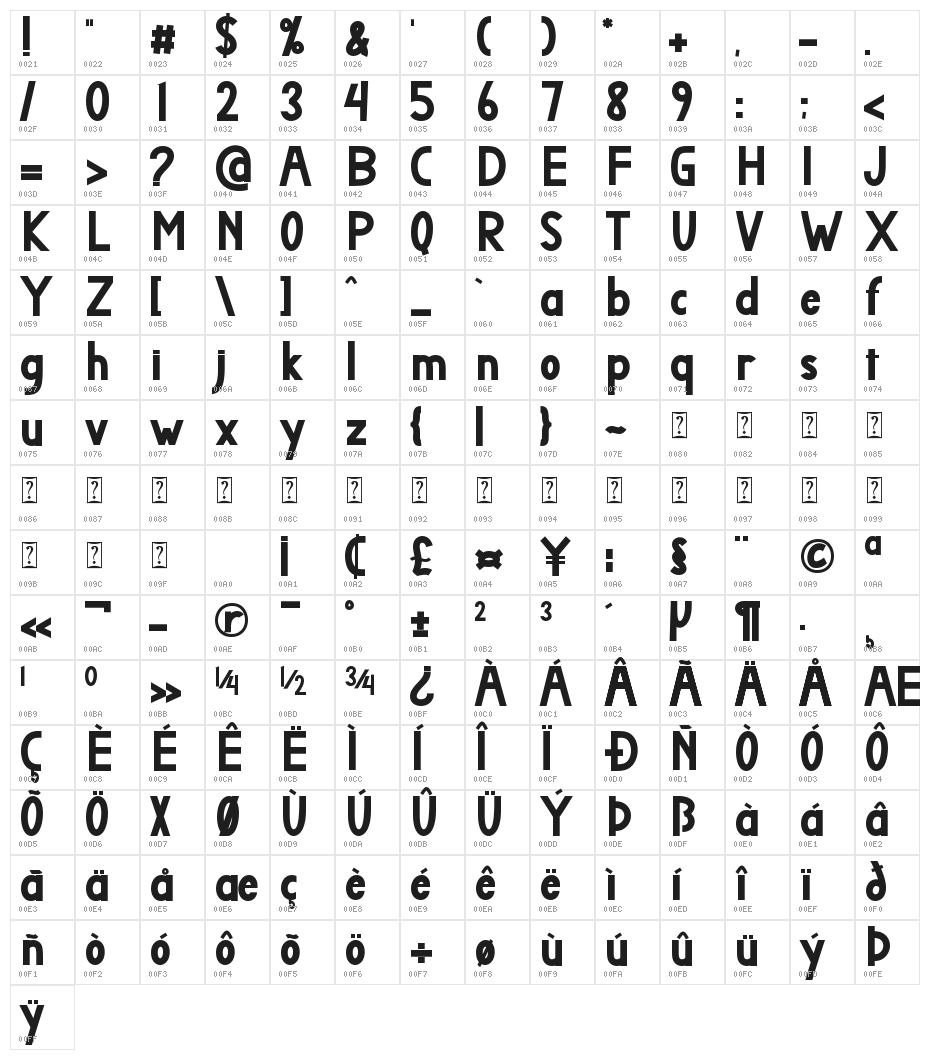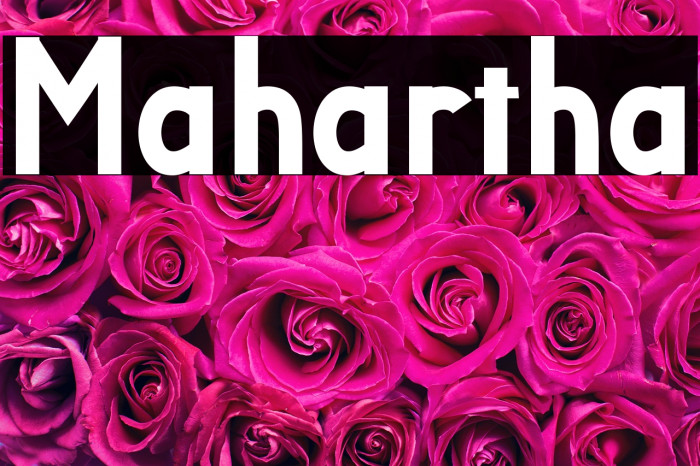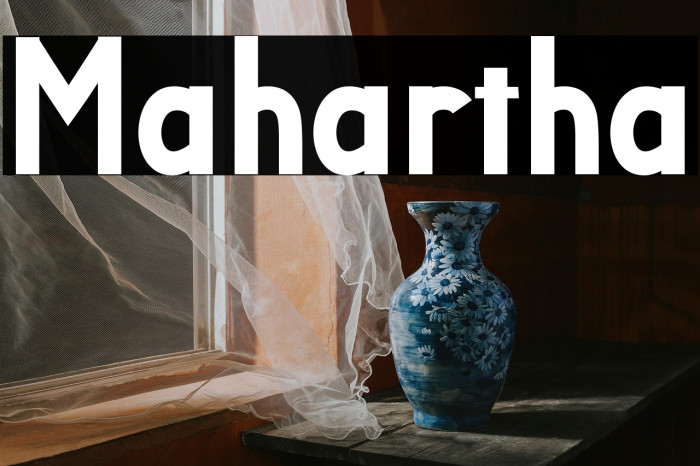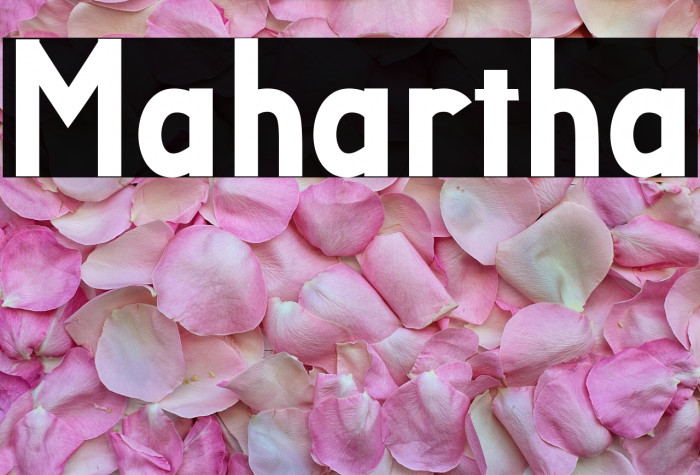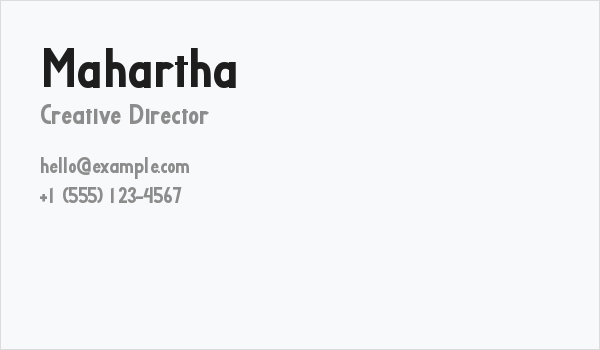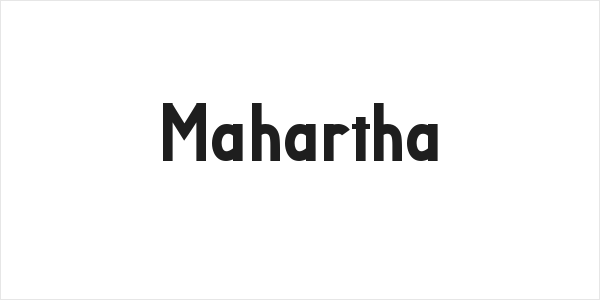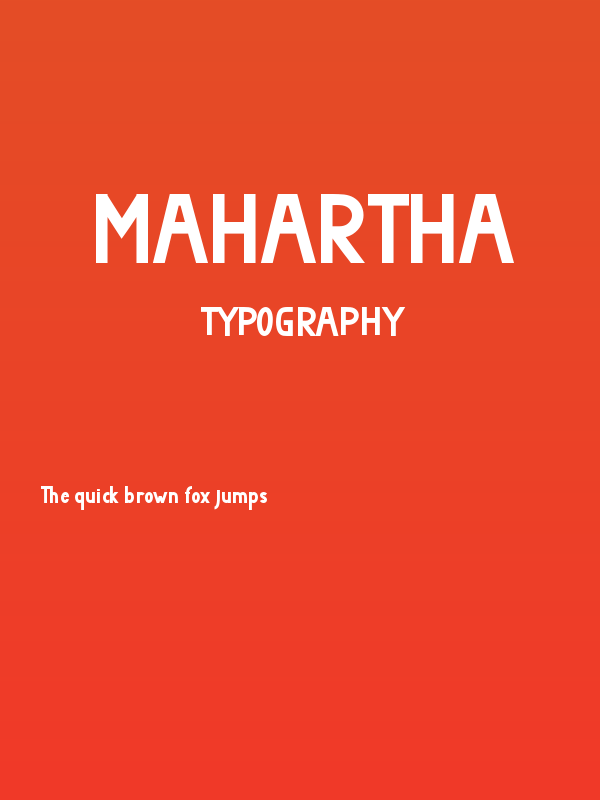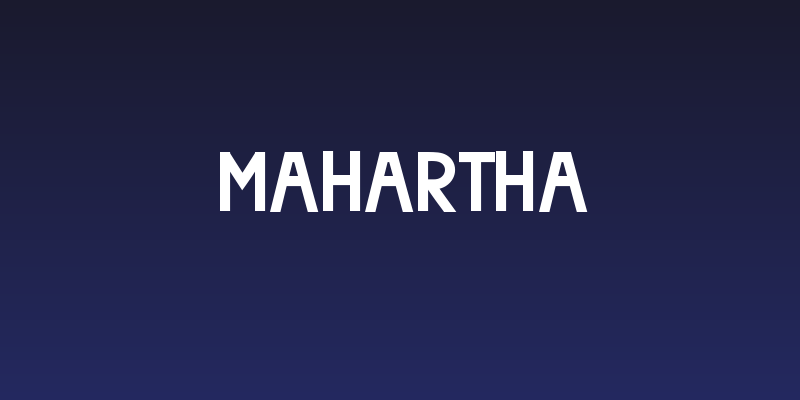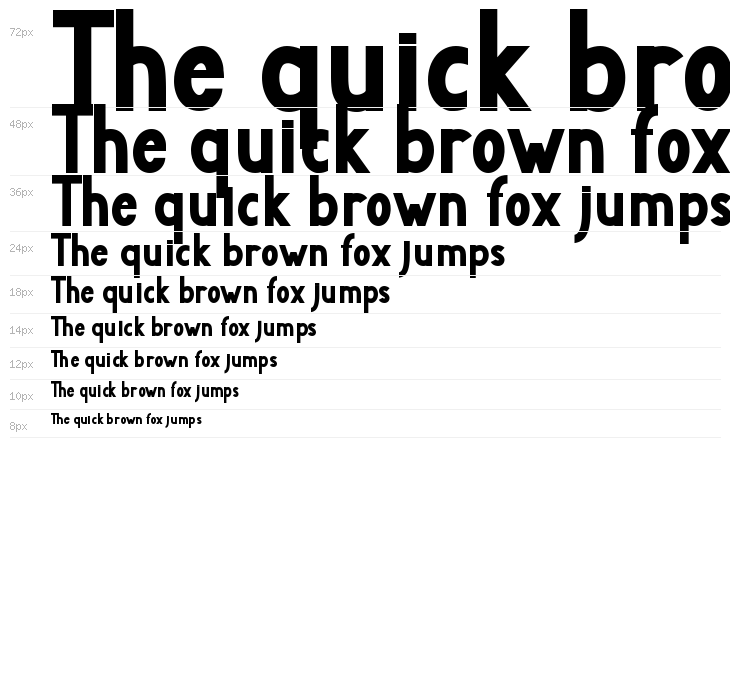
Mahartha Font
Mahartha Description
This font features a bold and assertive style with clean, geometric lines. The characters are well-defined with a consistent stroke width, giving it a modern and professional appearance. The uppercase letters are tall and commanding, while the lowercase letters maintain a similar width, ensuring readability. The numerals are clear and distinct, matching the overall boldness of the alphabet. Special characters are included, maintaining the same robust style. This font is versatile, suitable for various design needs where a strong visual impact is desired.
| Proposed Projects | Ideal for branding, advertising, headlines, and posters where a strong, modern look is needed. |